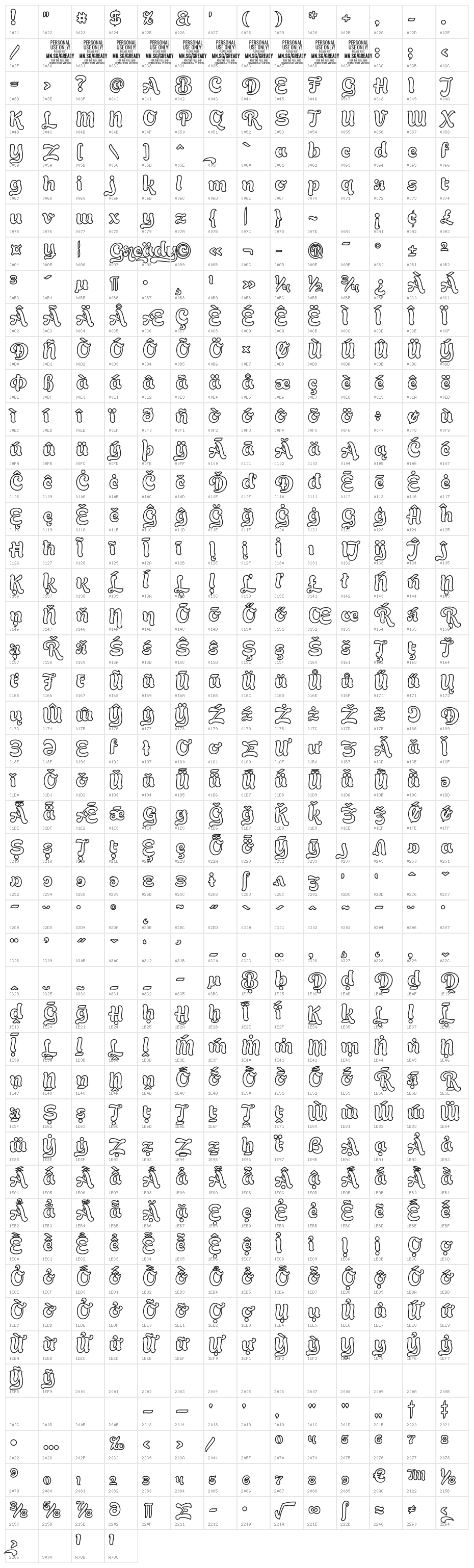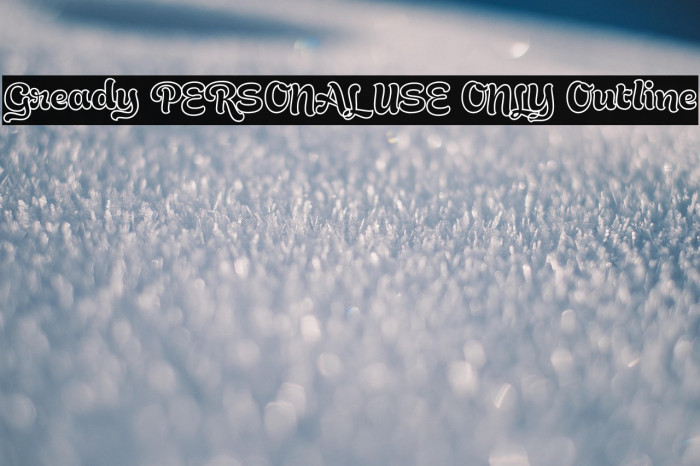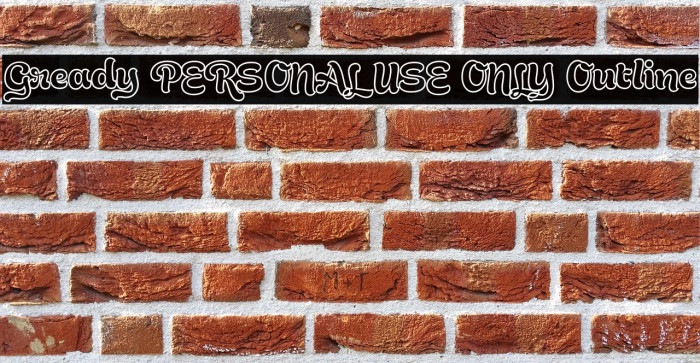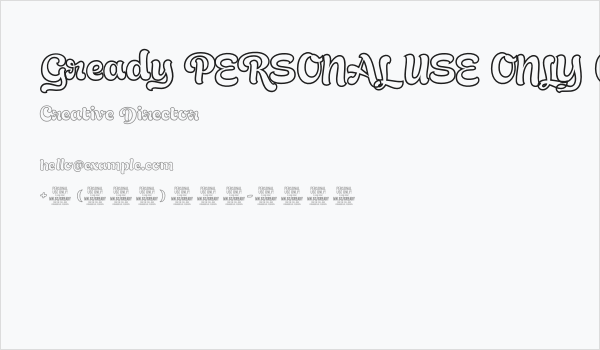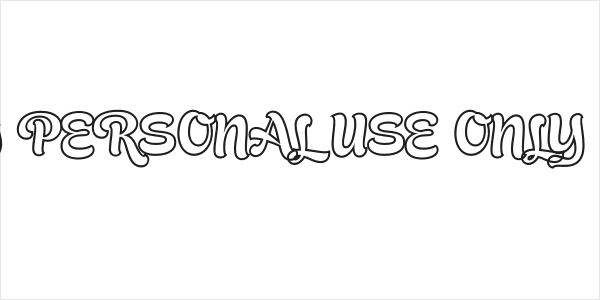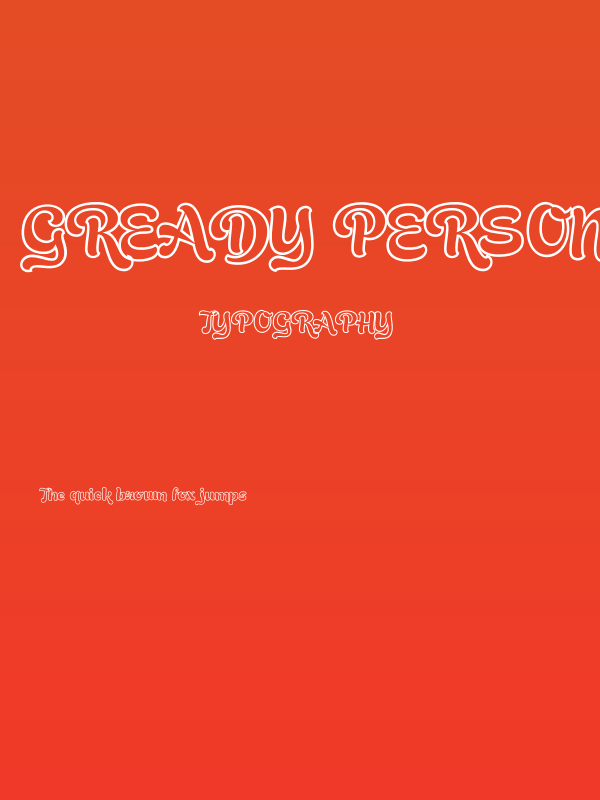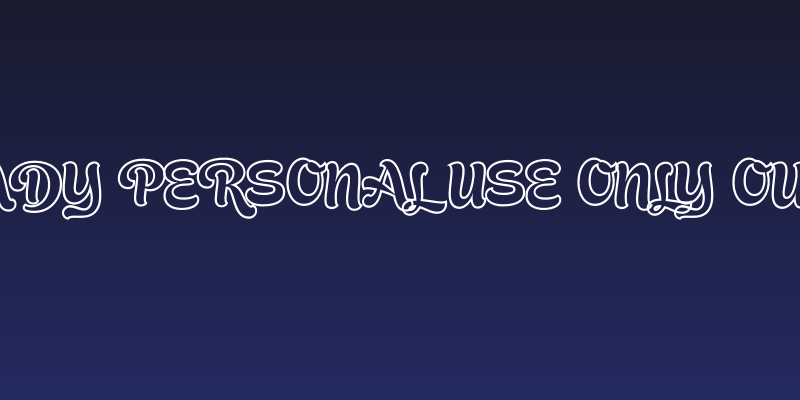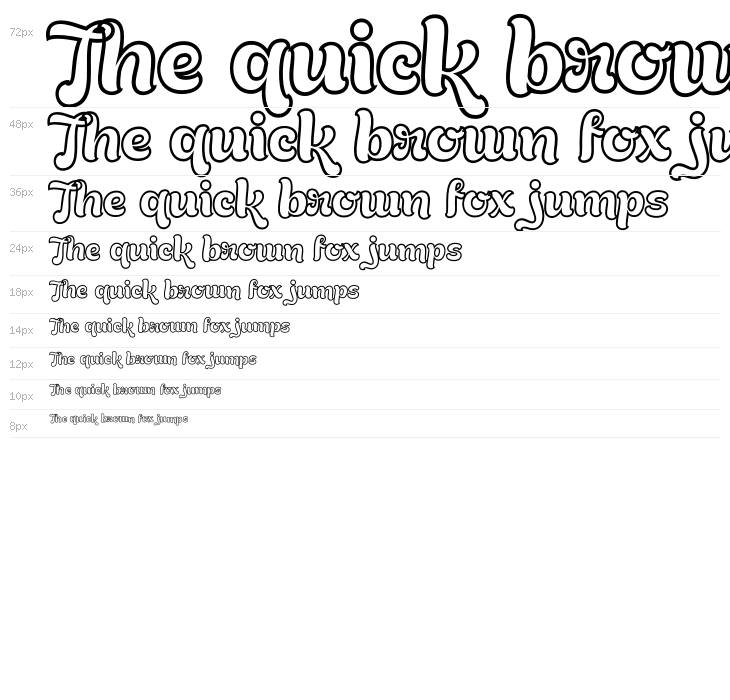
Gready PERSONAL USE ONLY Outline Font
Gready PERSONAL USE ONLY Outline Description
This font features a playful and bold outline style, characterized by its thick, rounded edges and whimsical curves. The uppercase and lowercase letters maintain a consistent flow, with each character exhibiting a unique flair that adds to the overall charm. The numbers and special characters follow the same design principles, ensuring a cohesive look across all elements. This font's outline nature makes it stand out, ideal for projects that require a fun and eye-catching aesthetic.
| Overall Style | Playful, Fun, Whimsical |